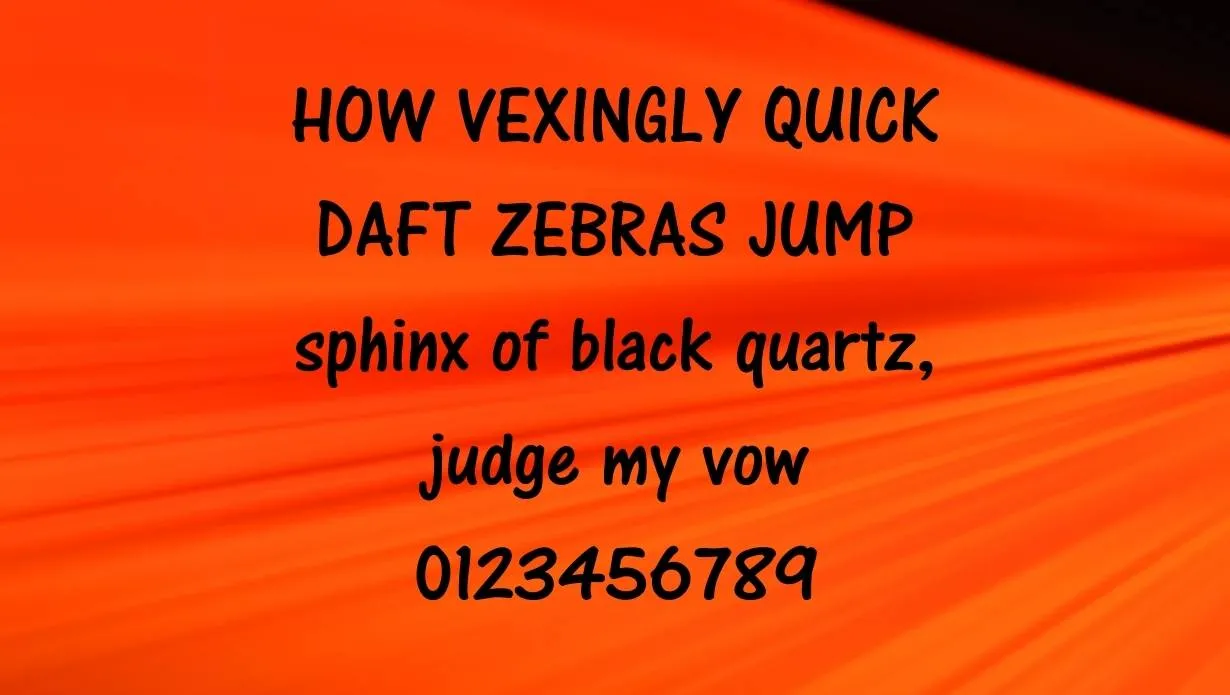
Cena Font is a highly distinctive and unique typeface that has been used in various contexts over the years. First created in 1960, this font is known for its unique serifs and sharp, angular edges.
Despite being one of the oldest fonts still in use today, Cena typeface continues to be popular among designers and typographers who appreciate its striking appearance and high level of versatility.
This Font was developed by designer Georg Trump in 1960, and it quickly became a popular choice among designers due to its striking appearance and distinctiveness.
Unlike many other typefaces that are clean and minimalist, Cena features bold, angular serifs that give it a sharp, modern feel. In addition to its aesthetic appeal, This Font is also highly versatile and can be used in a variety of different contexts.
Who Used Cena Font?
This Font is most commonly used for headlines and other short blocks of text where its striking appearance can be fully appreciated. It is also frequently used in logos and branding, as its unique character helps to create a strong and memorable visual identity.
Despite its age, Cena typeface remains one of the most popular typefaces in use today. Thanks to its unique appearance and high level of versatility, This Font continues to be a go-to choice for designers and typographers who are looking for a modern and eye-catching font.
Whether you are looking for a bold headline font or want to incorporate Cena Font into a more text-heavy design, this typeface is sure to add an impactful finishing touch to your work.
Cena Font Family Appearance
| Name | Cena Font |
| Designer | Luis Bandovas |
| Style | Sans Serif |
Alternatives of Cena Font
Family of Cena Font
Is Cena a proportional Font?
No, This Font is not a proportional font. All of the letters in this typeface are the same width, which can make it a bit more challenging to use in certain contexts.
Is Cena a modern Font?
Yes, Cena typeface is a modern typeface that has been widely used for many decades. Despite its age, it continues to be a popular choice among designers due to its unique character and high level of versatility.